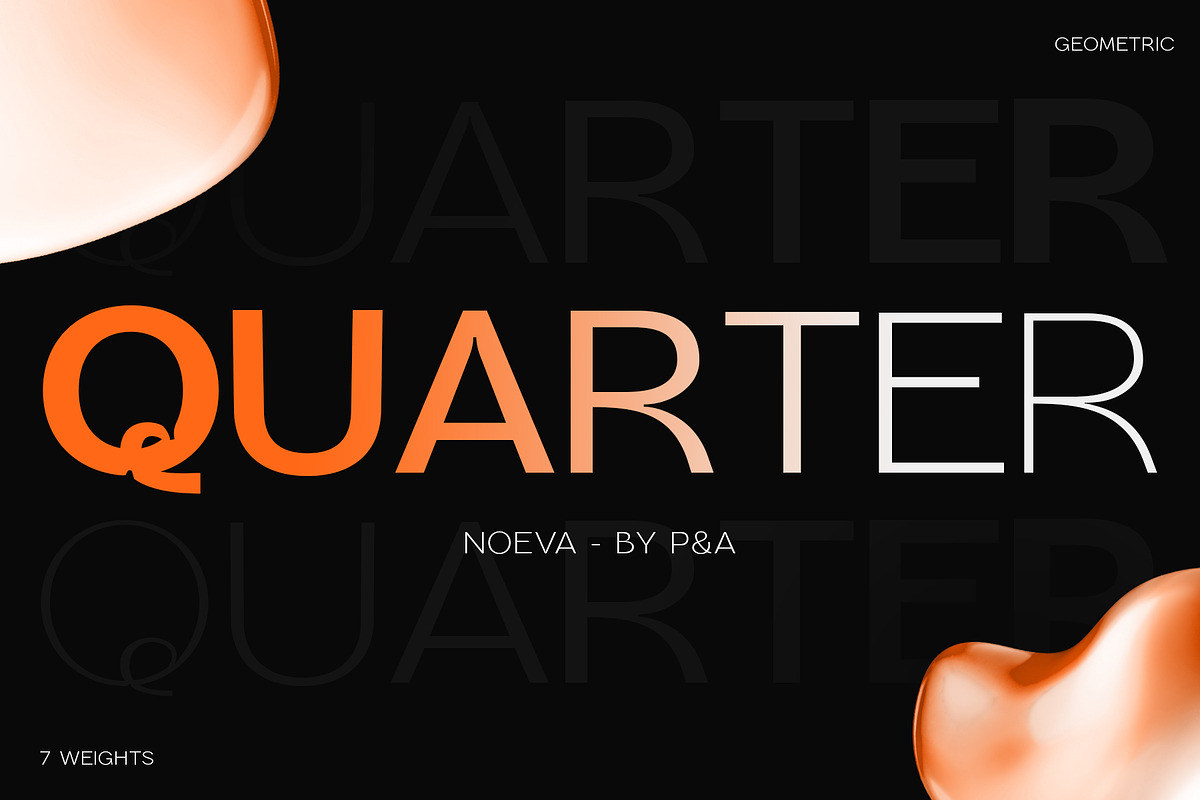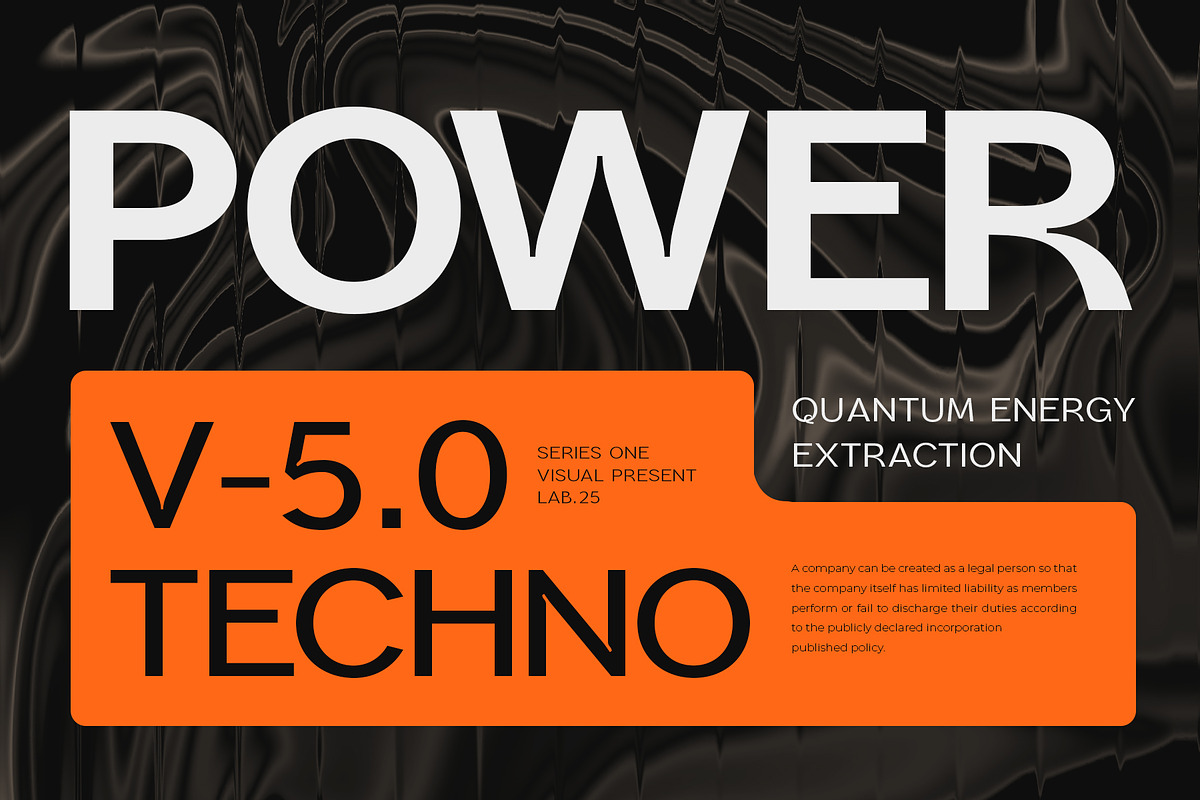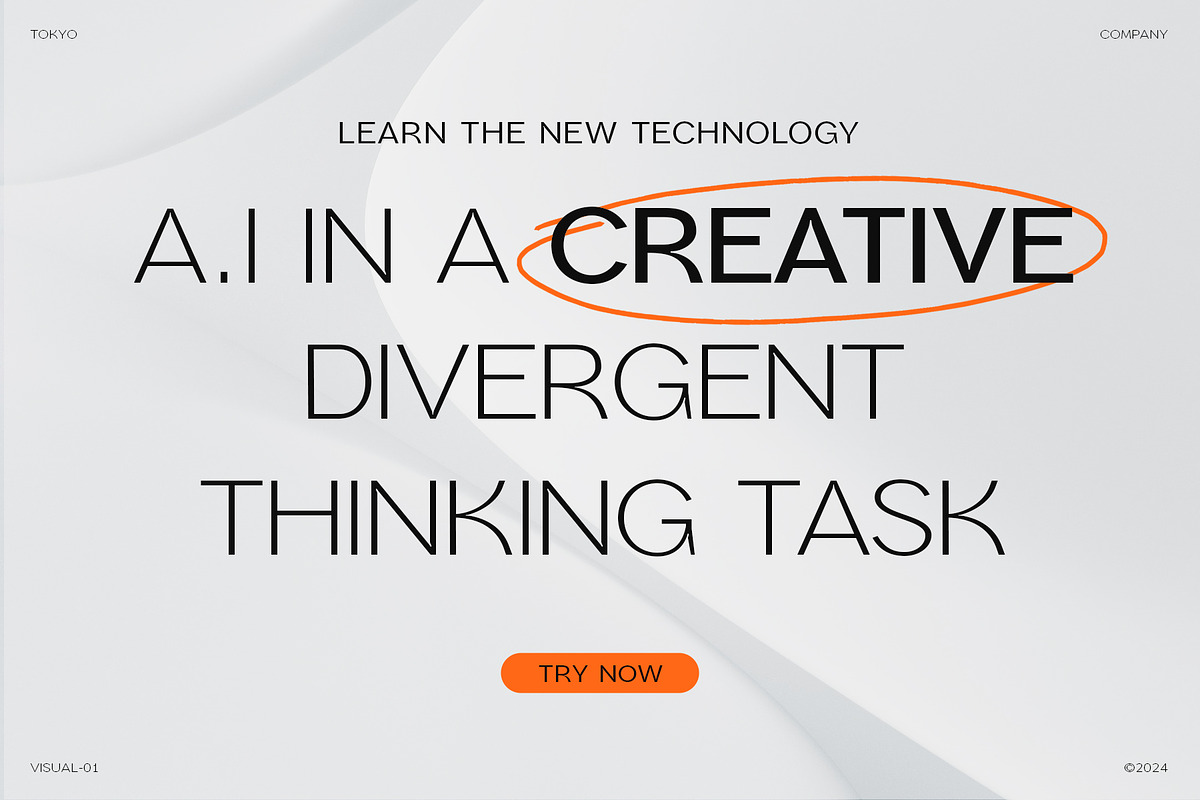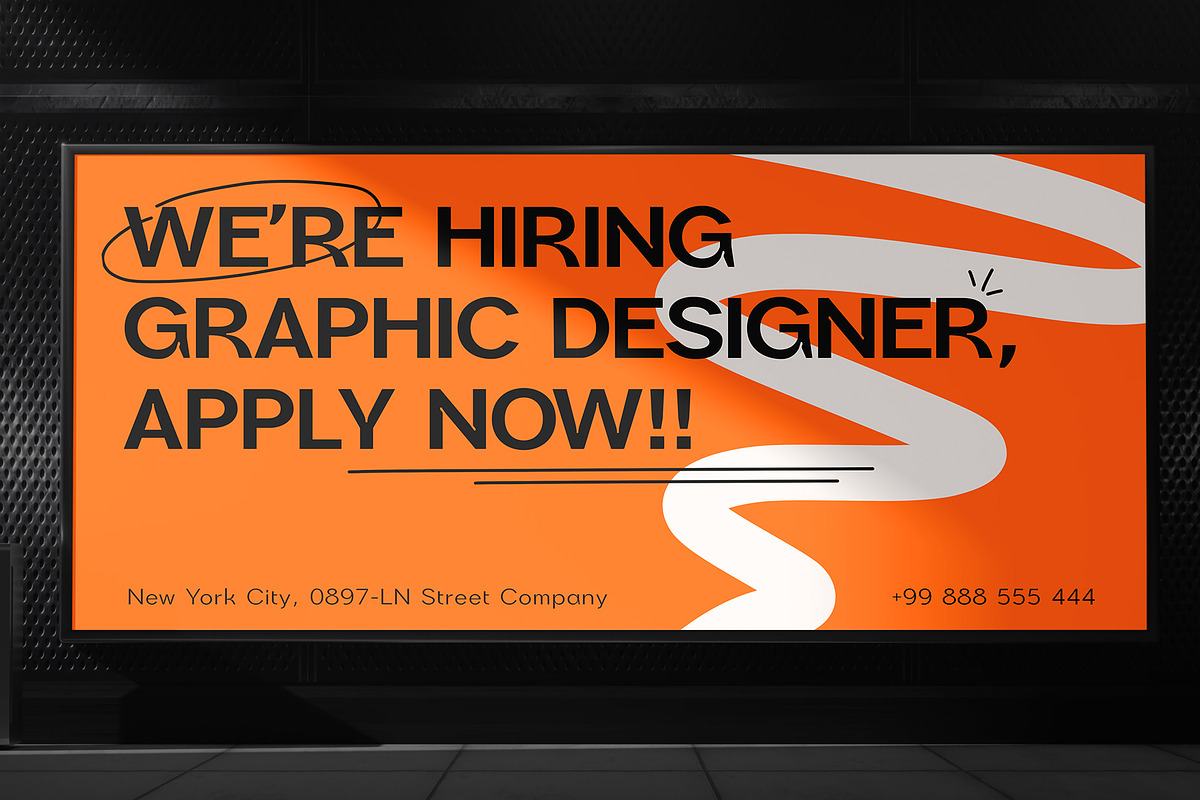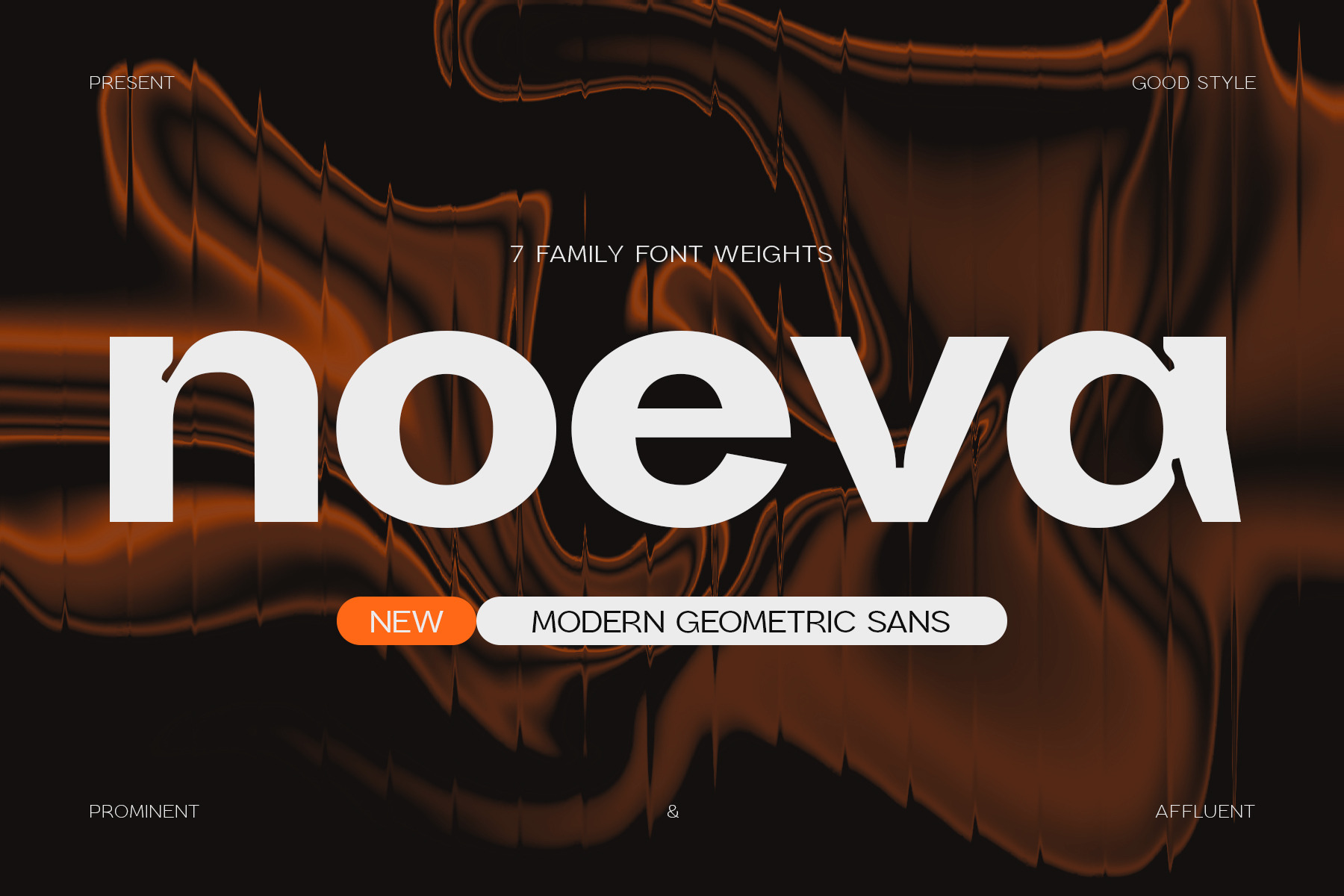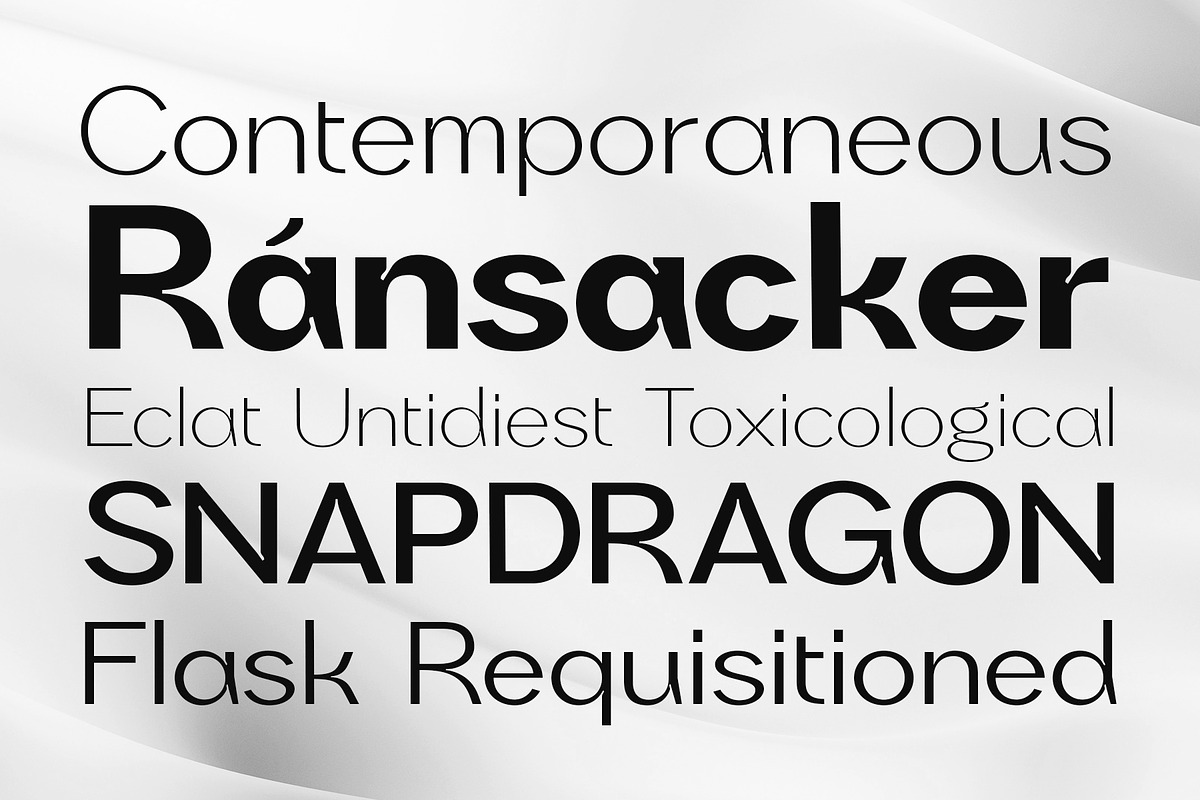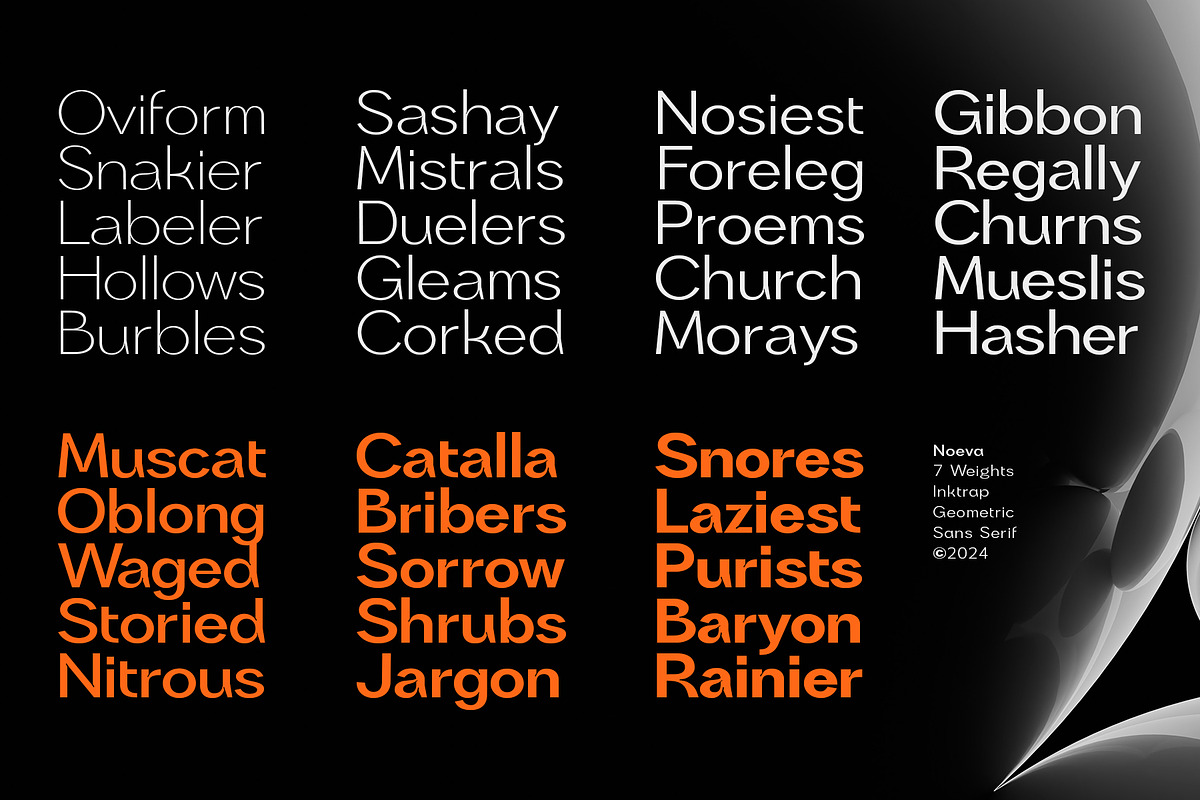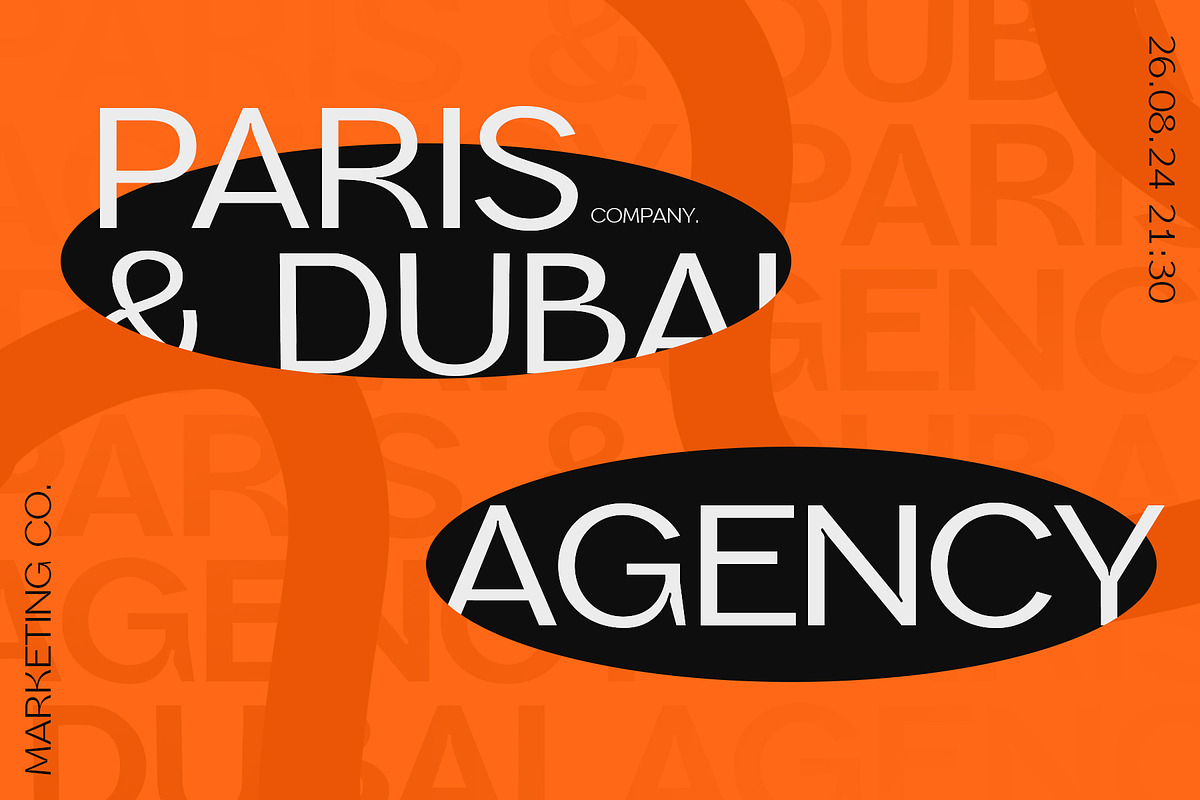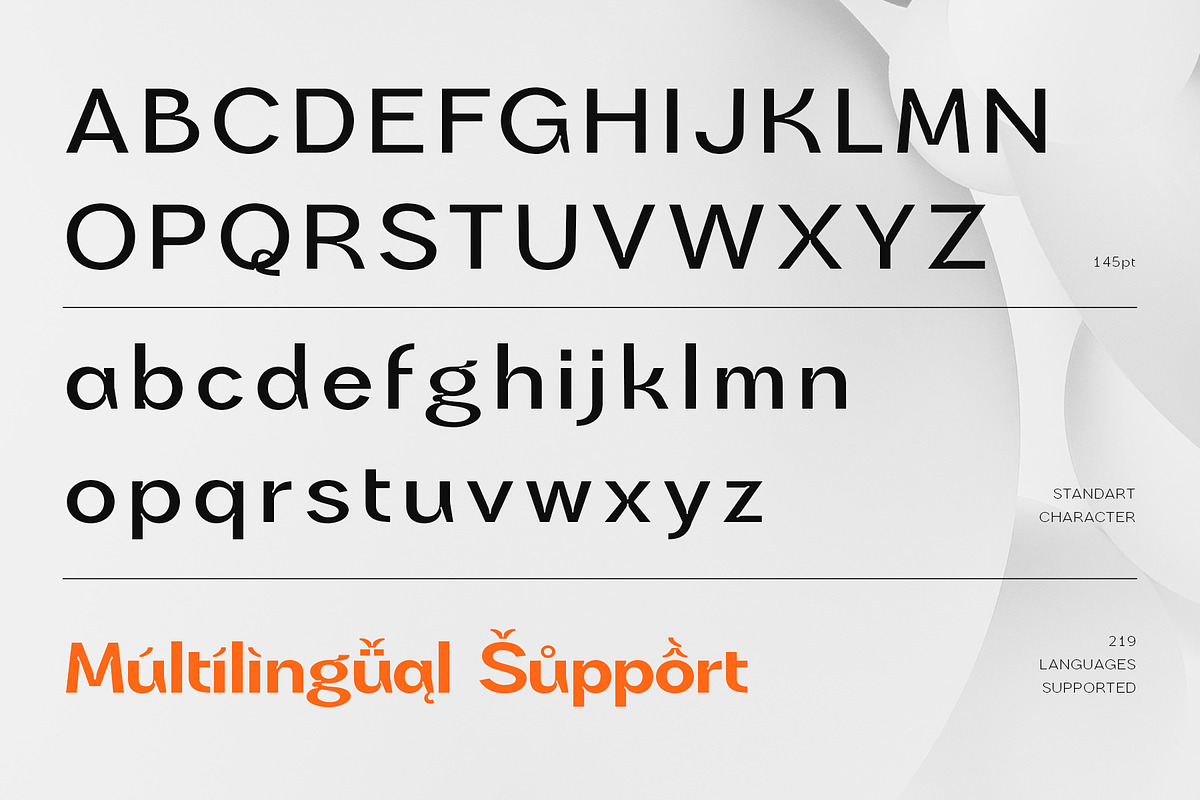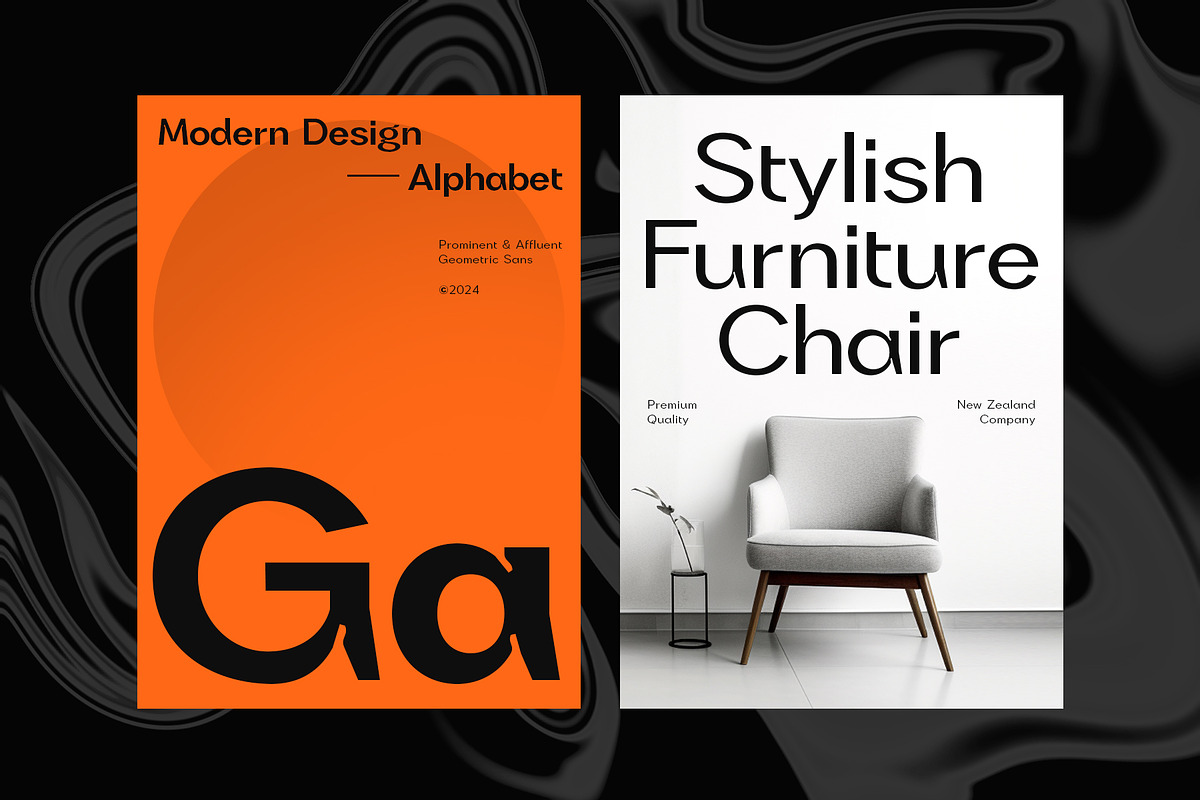
Noeva - Inktrap Font
Step into the future of design with Noeva, a cutting-edge sans-serif font family that redefines modern elegance. Crafted with precision, Noeva boasts 7 dynamic weights, offering unparalleled versatility for all your creative needs. Its geometric structure paired with distinctive inktrap details ensures that every character commands attention. Whether you're crafting a bold headline or subtle body text, Noeva's sleek and stylish personality will elevate your work to new heights. Embrace the future with Noeva, where form meets function.